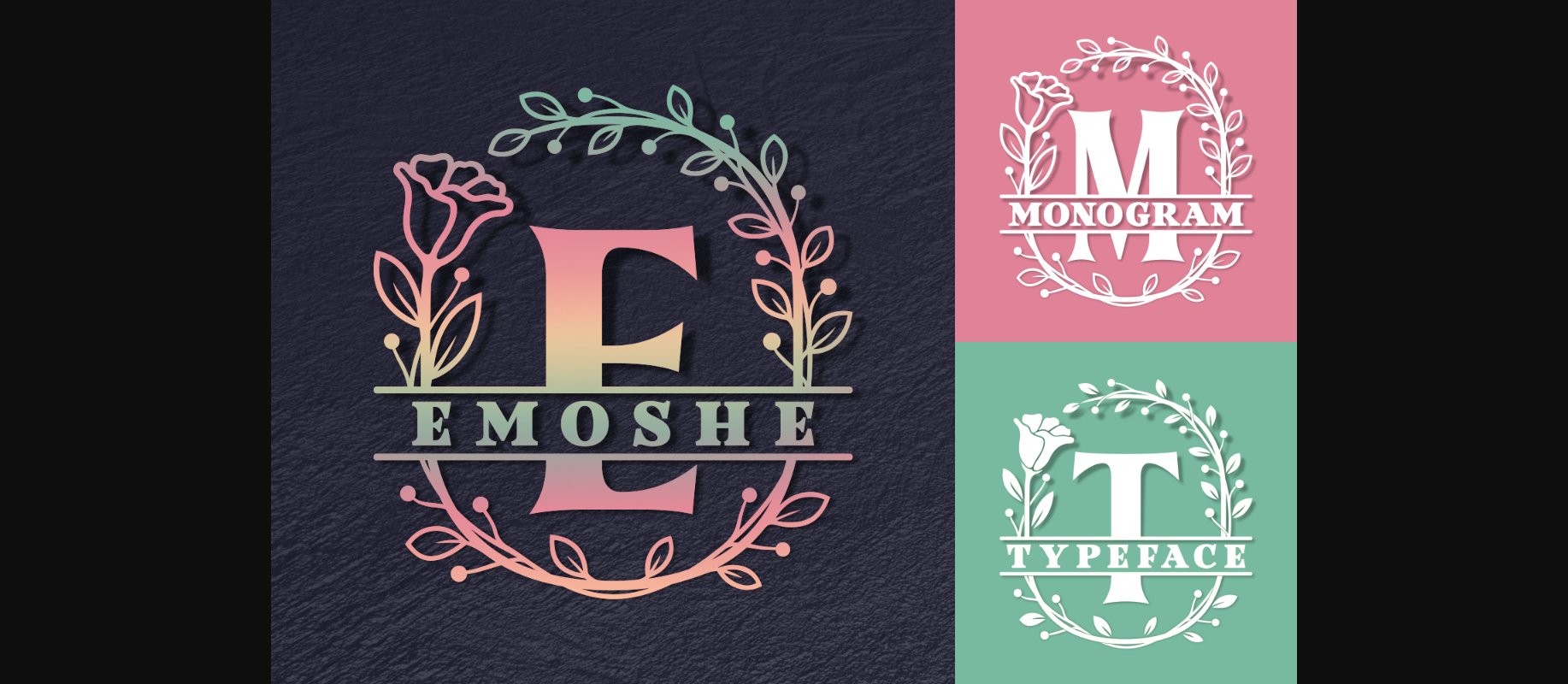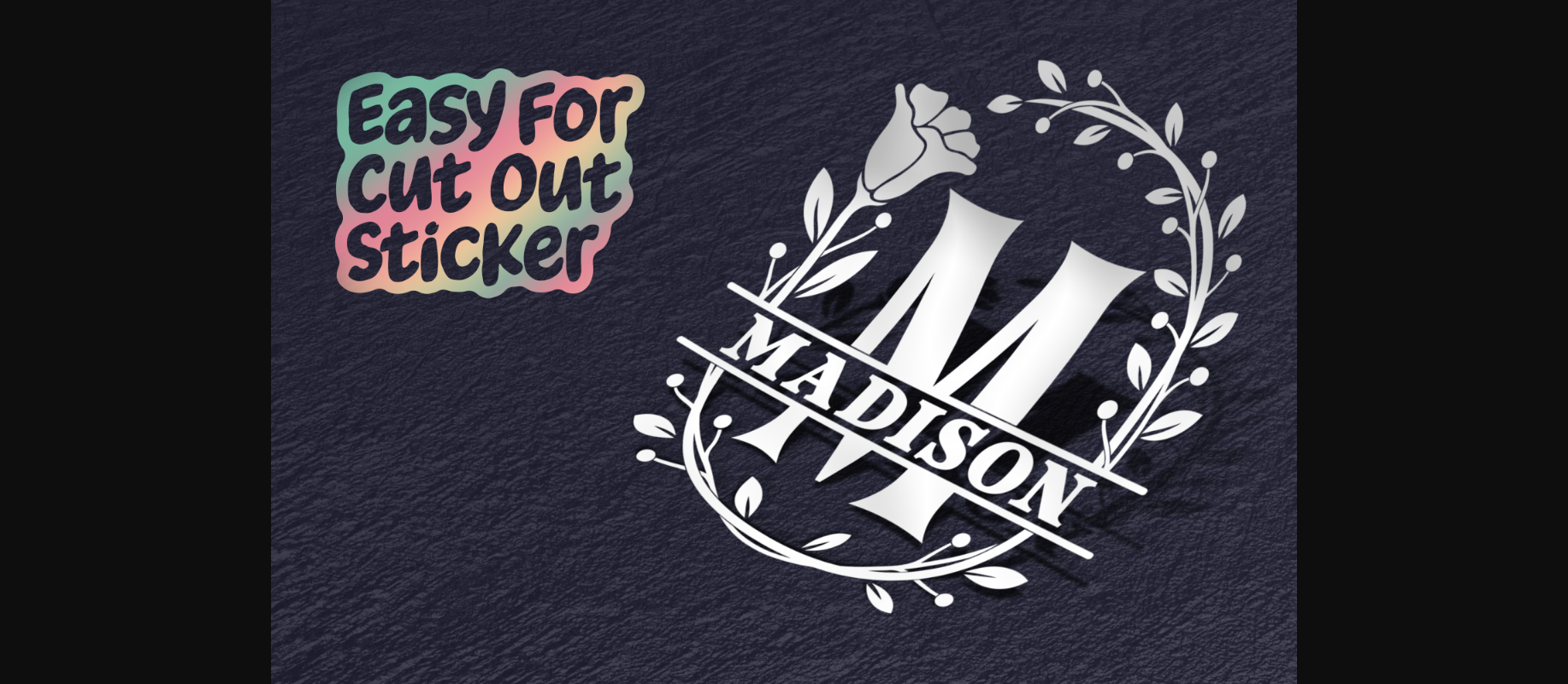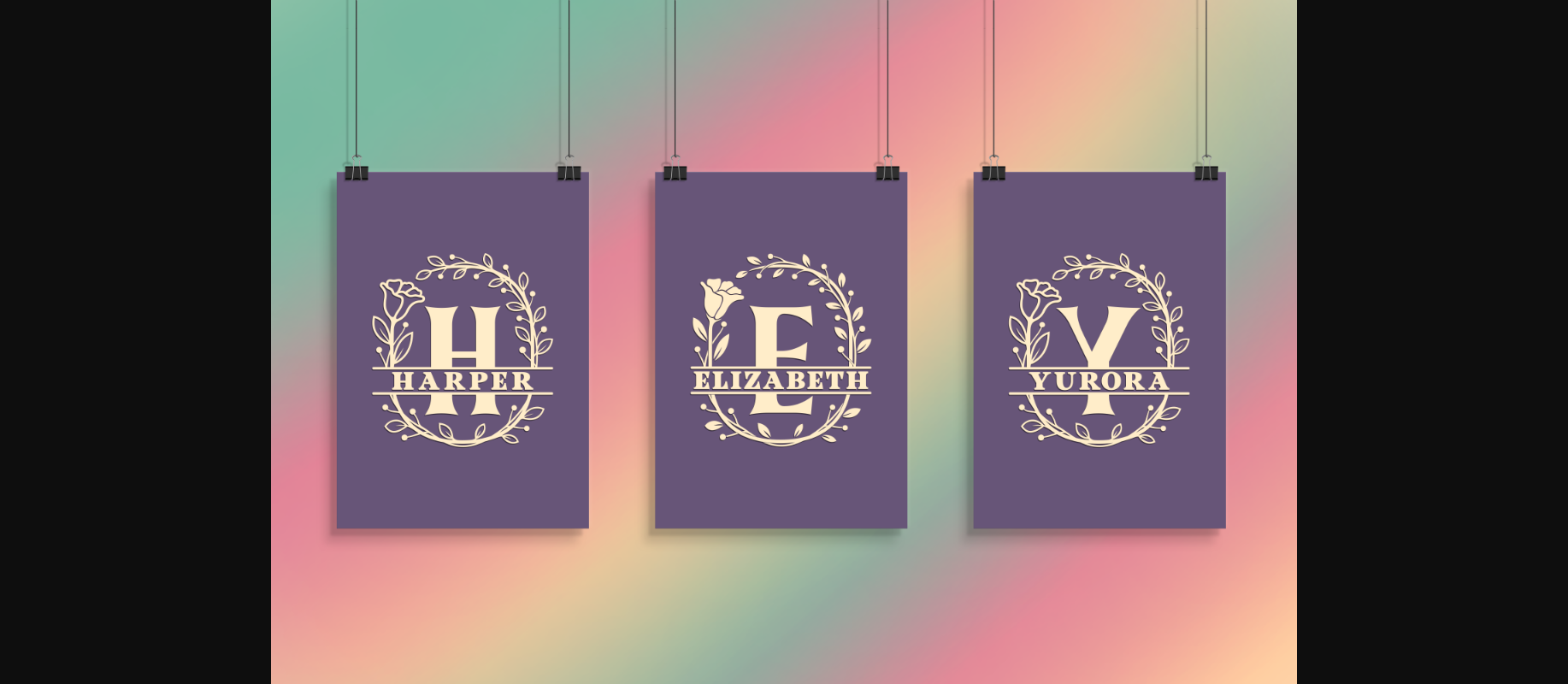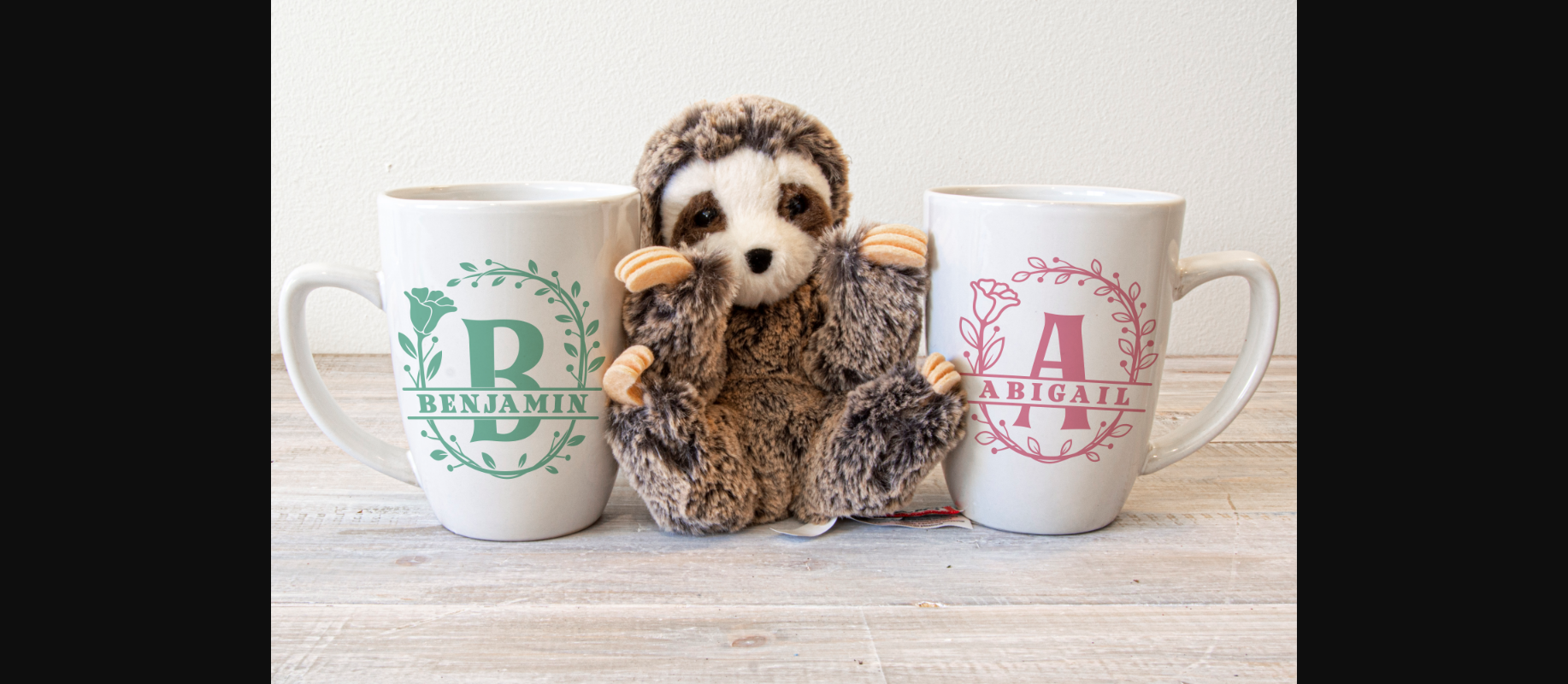
Emoshe Font
About Emoshe Font
Emoshe is an elegant and authentic decorative font. Add this beautiful and delicate font to your library and use it for your favorite creations.